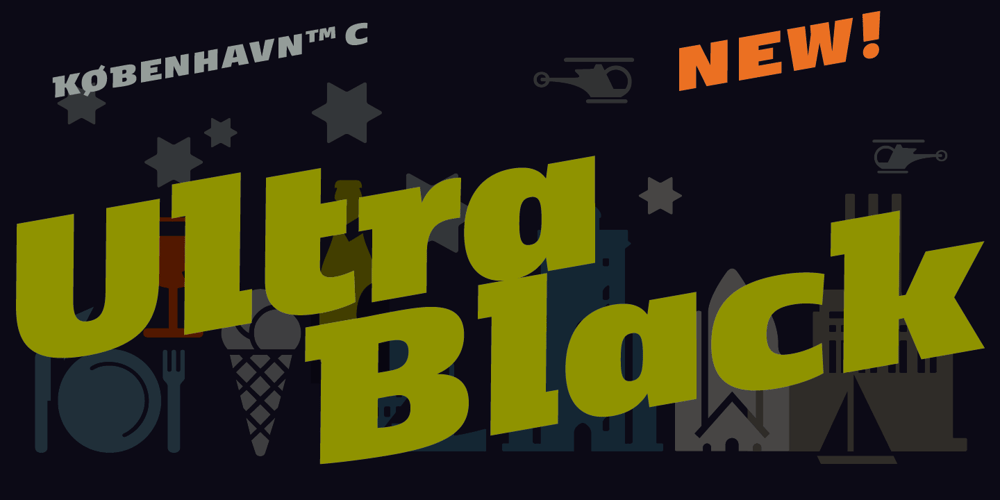
København C Font Family was designed by Morten Rostgaard Olsen and published by Fontpartners. København C contains 30 styles and family package options. New versions available of our FP København font family: København C. C for Condensed, C for City.